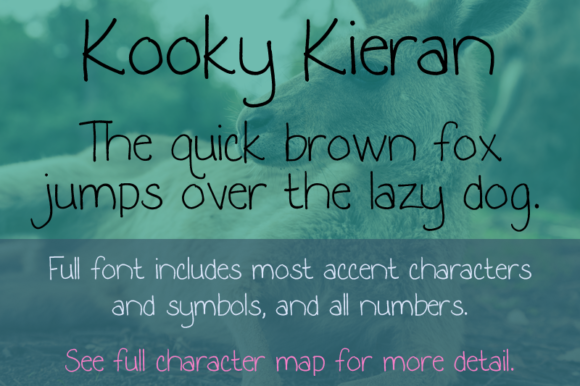
Welcome to the whimsical world of Kooky Kieran Font, a charming script font family that captures the essence of joyous handwritten notes. Step into a realm of heartfelt messages, playful invitations, and creative expressions with this extraordinary font duo.
Picture the delight of your loved ones as they receive a letter penned in Kooky Kieran's distinct style. Its playful, loopy letters dance across the page, evoking a sense of warmth and familiarity reminiscent of a handwritten treasure. Every word carries a touch of whimsy, turning even the simplest message into a heartfelt expression.
But Kooky Kieran isn't just limited to heartfelt notes. Its versatility extends to invitations, greeting cards, and social media posts. Let your creativity soar as you design eye-catching graphics, captivating logos, and stunning website headers. With Kooky Kieran, your messages will stand out from the crowd, leaving an unforgettable impression.
And the surprises don't end there. Kooky Kieran comes with an enchanting twist: an alternate version featuring heart-shaped letters. Embrace the magic of love as you craft heartfelt messages that truly capture the essence of romance. Whether it's a Valentine's Day card, a wedding invitation, or a simple note of appreciation, these heart-shaped letters add a touch of sweetness and charm.
Join the growing community of Kooky Kieran enthusiasts who have discovered the joy of handwritten charm in the digital age. Let your creativity flourish as you explore the endless possibilities this font duo offers. From heartfelt letters to eye-catching designs, Kooky Kieran is your ticket to a world of heartfelt expression and captivating design.